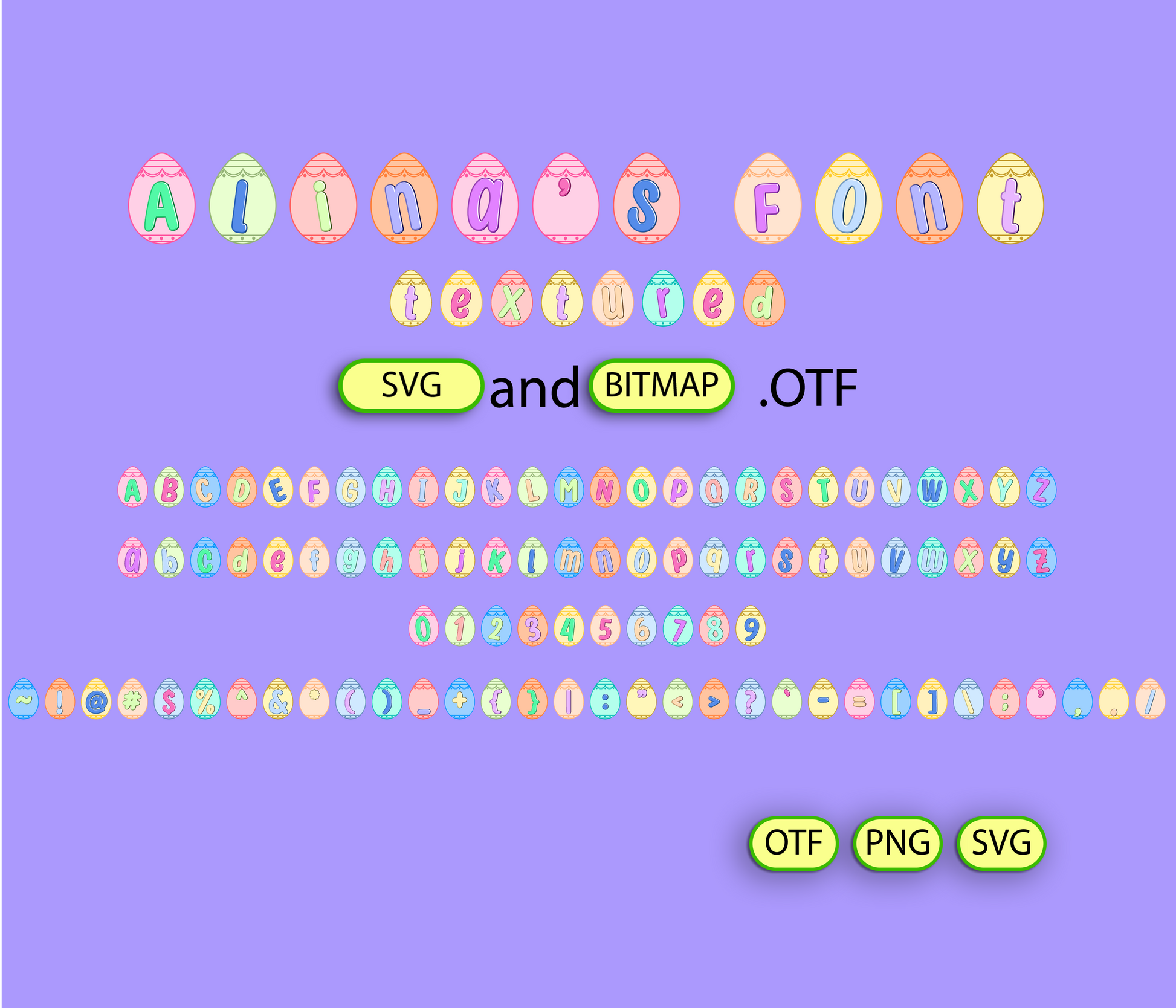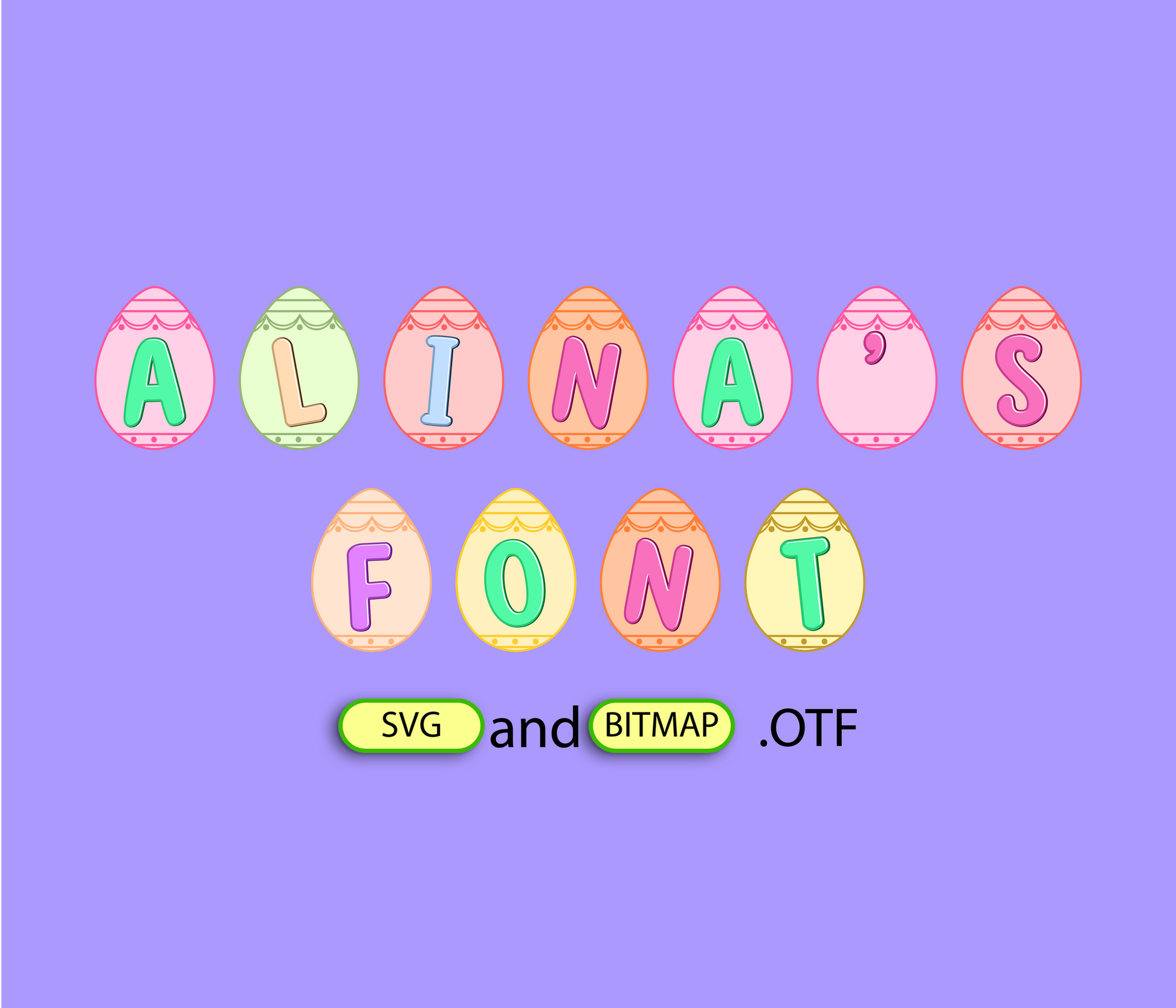
Easter Delightful Banner Font Textured
Easter Delightful Textured Font
Celebrate Easter with vibrant flair using our Easter color textured font, designed to bring the lively spirit and joyous palette of this festive season straight to your designs. This font captures the essence of Easter with its playful textures and colors, echoing the vibrant hues of spring flowers, painted eggs, and the bright morning of Easter day. Ideal for crafting eye-catching invitations, festive social media posts, and engaging educational materials, this font embodies the warmth, renewal, and joy that Easter represents.
With its comprehensive character set and user-friendly design, the Easter font is accessible to everyone, inviting users to add a touch of Easter magic to their creations effortlessly. Whether you're designing for professional purposes or personal enjoyment, our Easter color textured font, along with its no-texture variant, enhances your projects with the spirit of spring and the joyful essence of Easter.